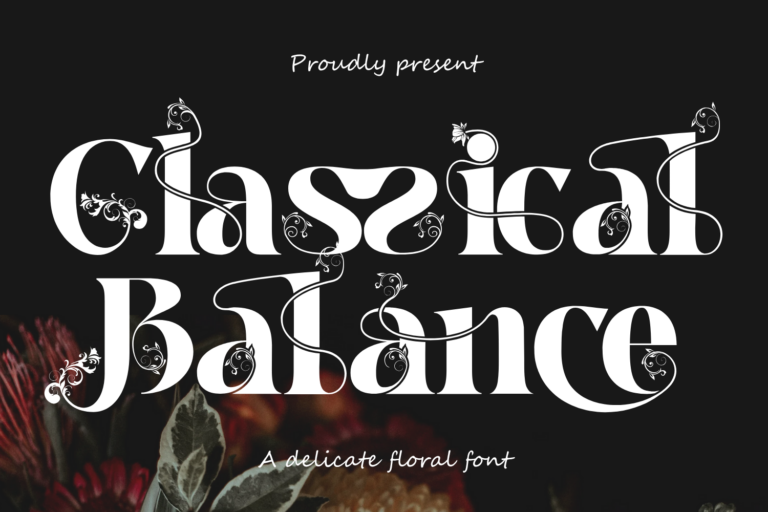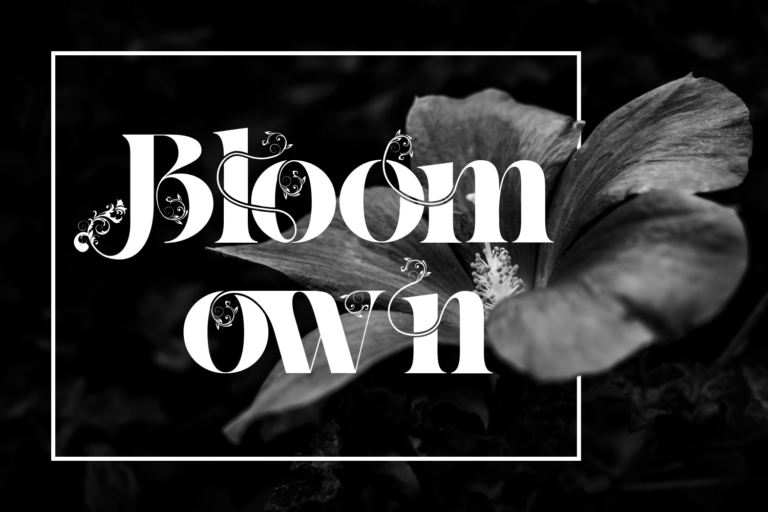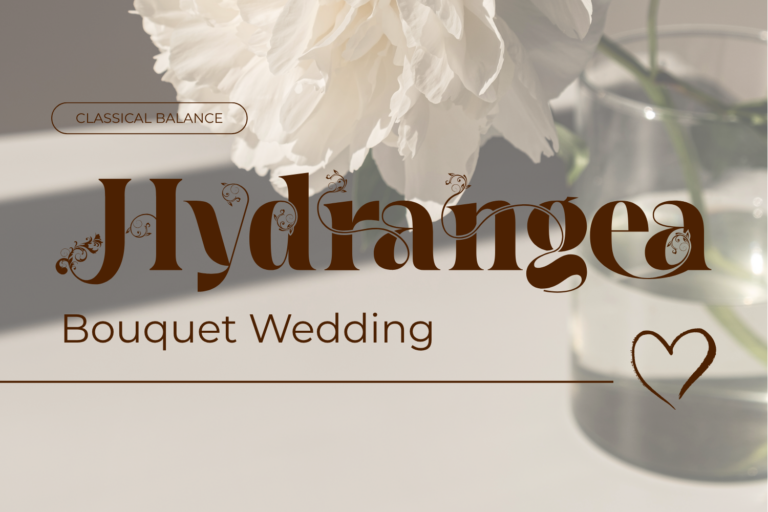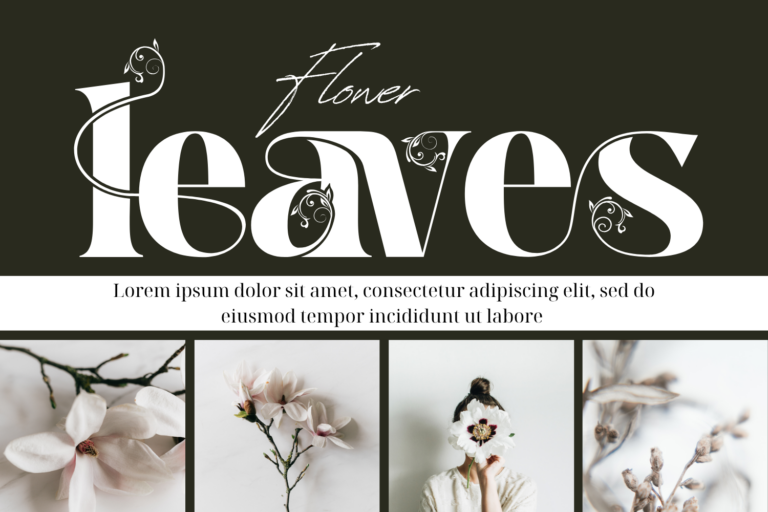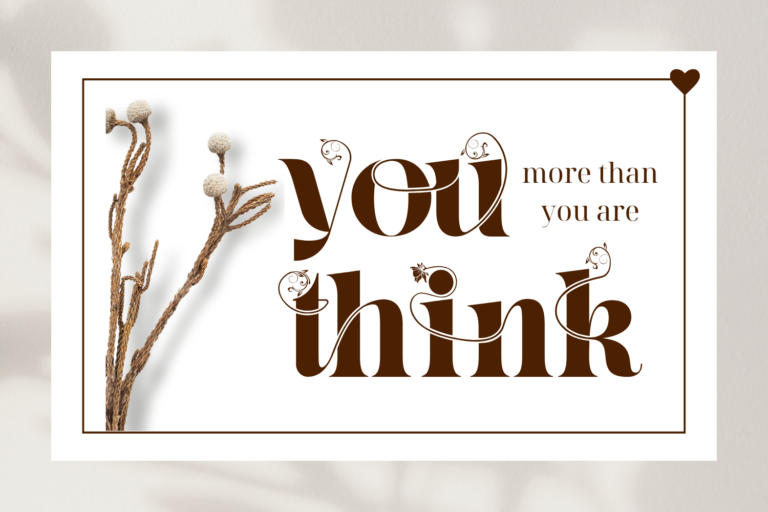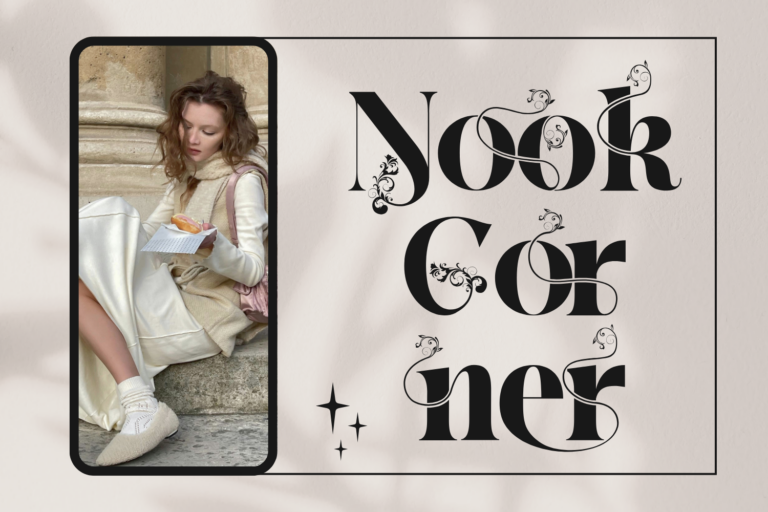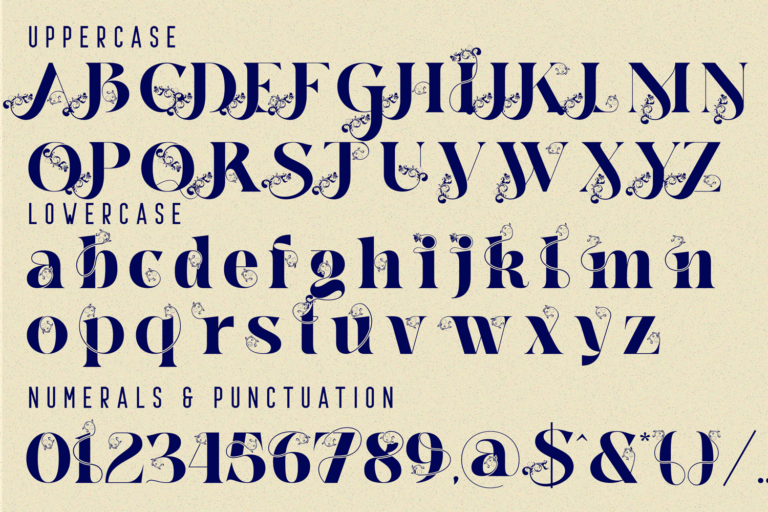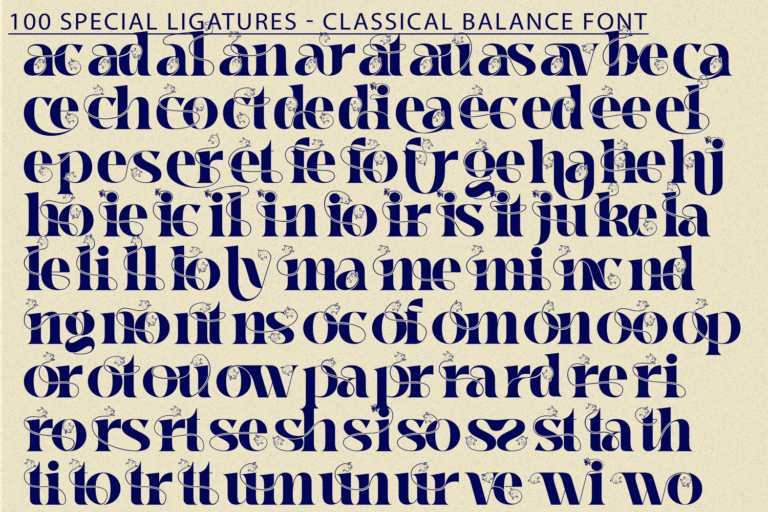
Classical Balance – Decorative Font is a high-contrast serif display font infused with botanical elegance and neoclassical finesse. Each letterform is gracefully adorned with flourishing vines, floral ornaments, and curving tendrils, creating an exquisite blend of nature and structure.
This font strikes a poetic balance between strength and softness, ideal for branding projects, luxury packaging, wedding stationery, fashion campaigns, and artistic editorials that seek timeless charm with ornamental flair.
Font Features:
• Uppercase & Lowercase Letters
• ~100 Decorative Ligatures
• Accented Characters for multilingual support
ac ad al an ar as at au av be ca ce ch co ct de di ea ec ed ee el em en ep er es et fe fo fr ge ha he hi ho ie ic il in io ir is it ju ke la le li ll lo ly ma me mi nc nd ne ng no nt ns oc of om on oo op or ot ou ow pa pr ra rd re ri ro rs rt se sh si so ss st ta te th ti to tr tt um un ur ve wi wo
Classical Balance – Decorative Font